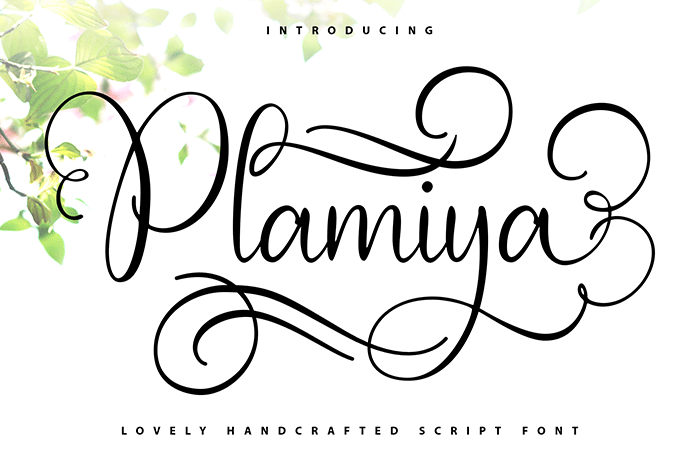
Plamiya Script Font
Plamiya is an exquisite script font, designed to easily become a true favorite. It looks stunning on quotes, greeting cards, logos, and more. Thanks to Vunira Studio for sharing this font! Take a look at this portfolio for more of his stunning fonts.